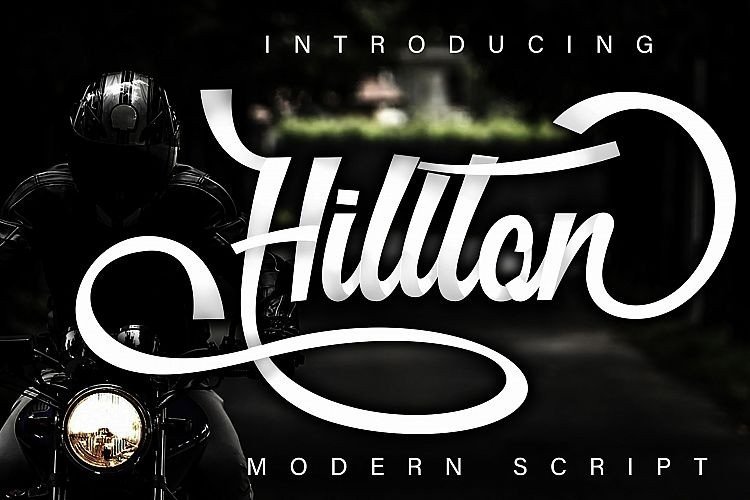
Hillton – Modern Script Font
Thank you for looking Hillton Font. This is hand-lettered script inspired by baseball script font. This font perfect for delivering any message with confidence and style, that you can customize your text just a bit more!
Hillton Modern Script is a beautiful modern script font with an alternative blend of more than 150 alternet (opentype) features suitable to support your design, for business, company, brands, clothes, books, and more